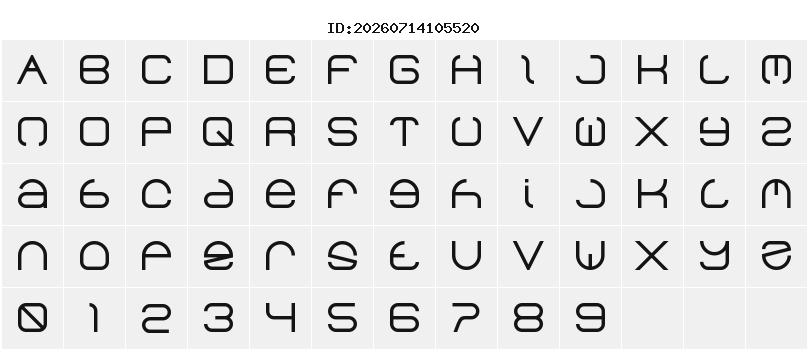
helen Preview
• Font Name: helen
• Font ID: helen:Version 1.00
• Full Font Name: helen
• Version: Version 1.00 August 21, 2011, initial release
• PostScript Name: helen
• Designer: 桴瑰㨯⽷睷⹤慦潮琮捯洯睩湯⵳⵫慤楲⹤㈲〹
• Manufacturer: 桴瑰㨯⽷睷⹤慦潮琮捯洯睩湯⵳⵫慤楲⹤㈲〹
• Description: This font was created using FontCreator 5.5 from High-Logic.com
About helen.ttf
helen.ttf is a modern, elegant sans-serif font designed for ultimate readability and visual harmony. Perfect for branding, headlines, web design, and print materials.